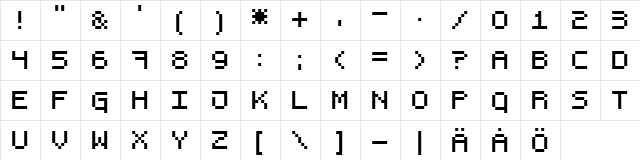
Bit6 Regular 6pts
Design Context for Bit6 Typeface
Bit6 is a composed and adaptable typeface that performs quietly and consistently across a wide range of design contexts.